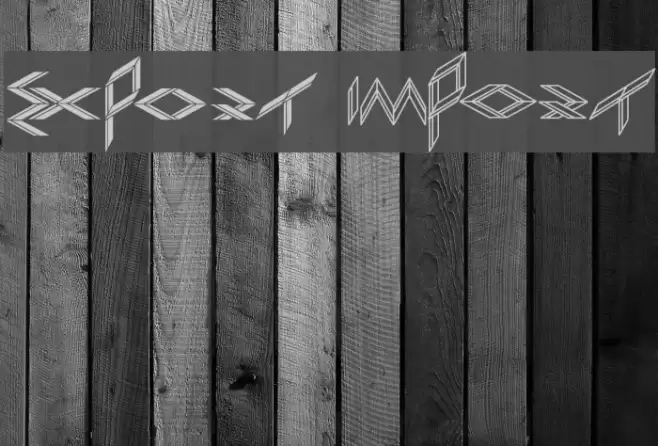
EXPORT import Font
EXPORT import Description
This font features a highly decorative and angular design, characterized by sharp, geometric lines and intricate patterns. Each letter is composed of multiple intersecting lines, creating a sense of depth and complexity. The uppercase and lowercase letters maintain a consistent style, with bold, angular strokes that give the font a futuristic and edgy appearance. The numbers and special characters follow the same design principles, ensuring a cohesive look across all characters. This font is visually striking and commands attention, making it ideal for projects that require a bold statement.
A decorative, angular font with sharp geometric lines and intricate patterns from Uncategorized fonts.
- Proposed Projects: Ideal for futuristic designs, video game titles, sci-fi movie posters, and edgy branding projects.
- Overall Style: Futuristic, Edgy